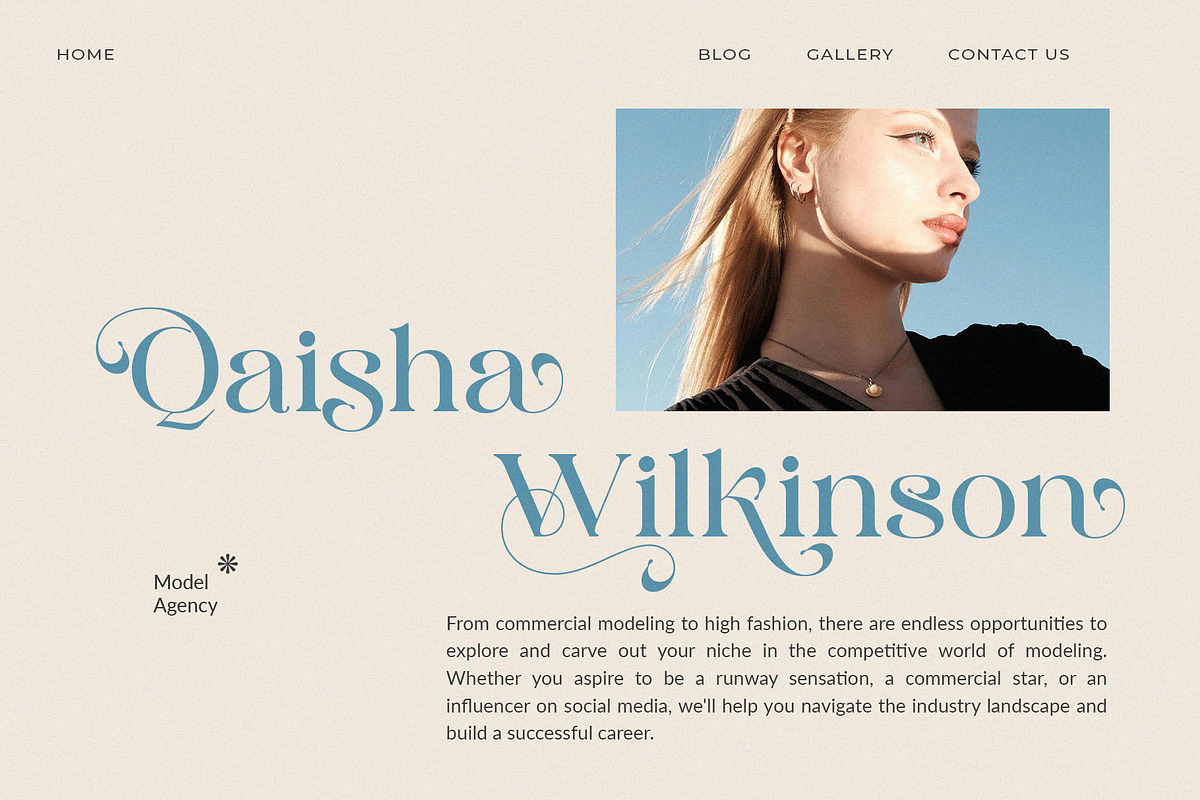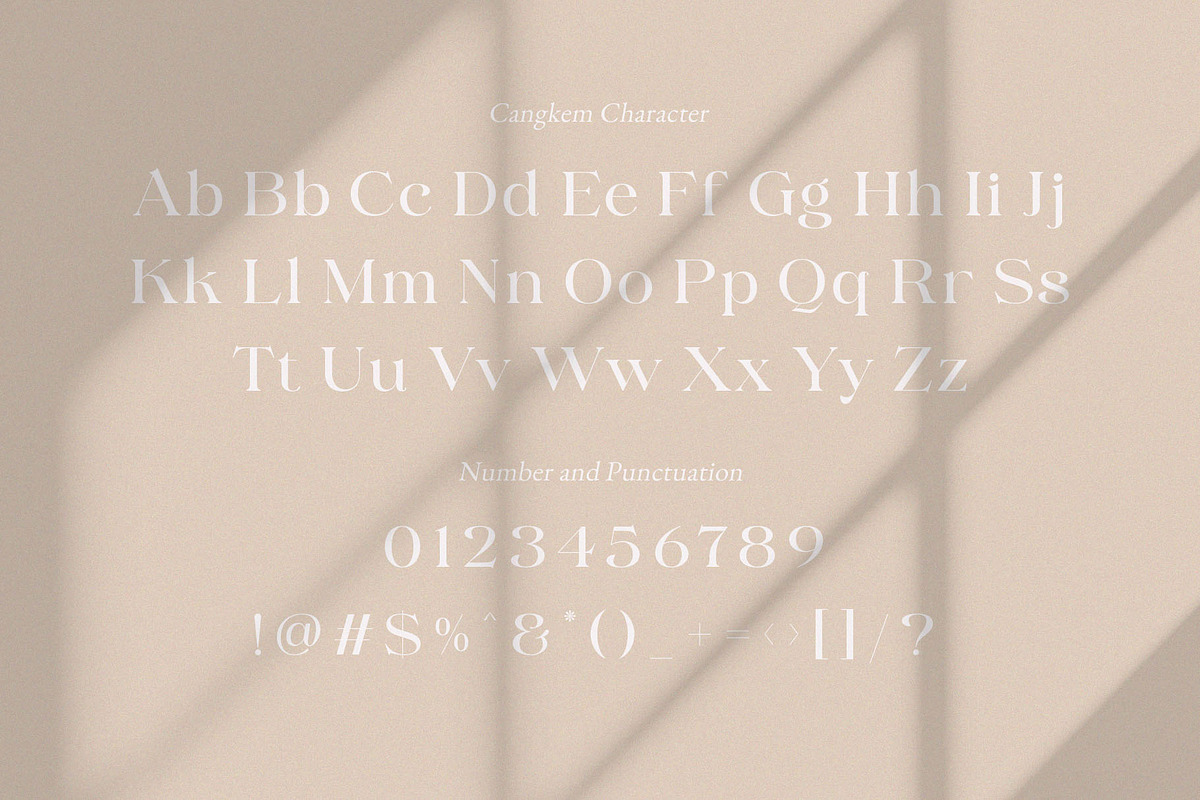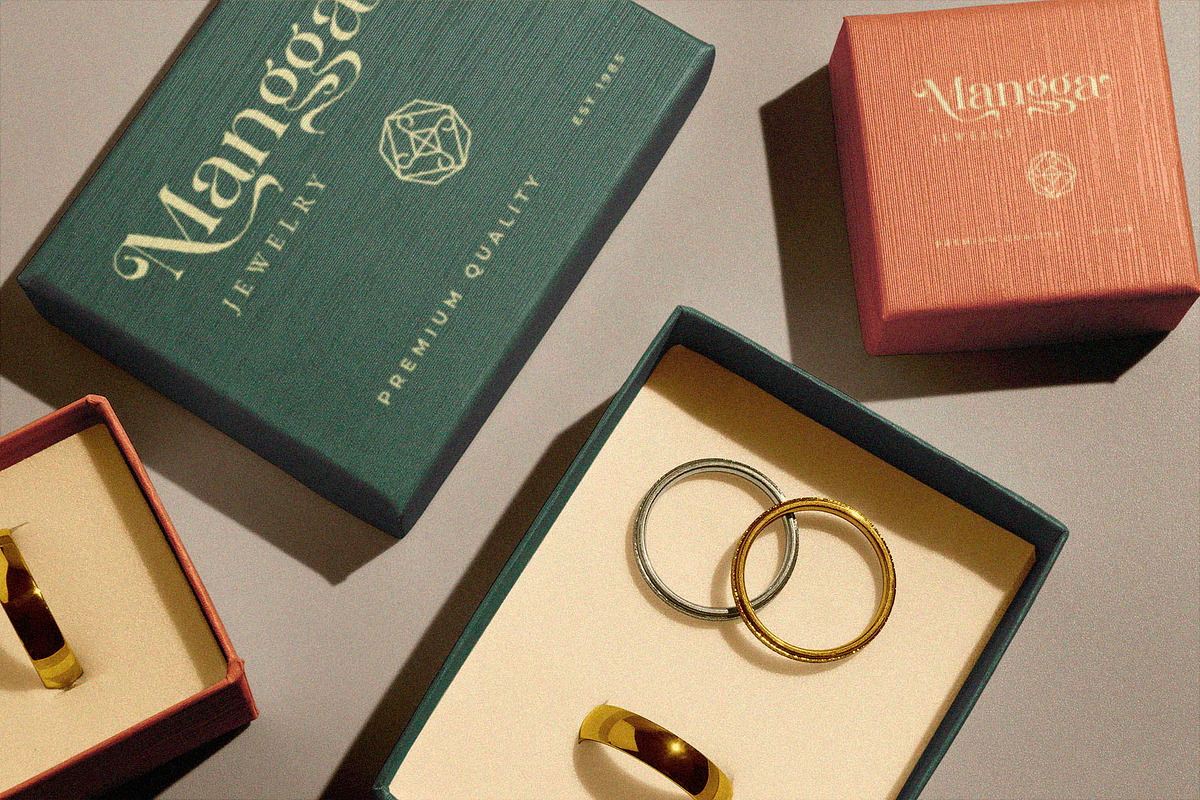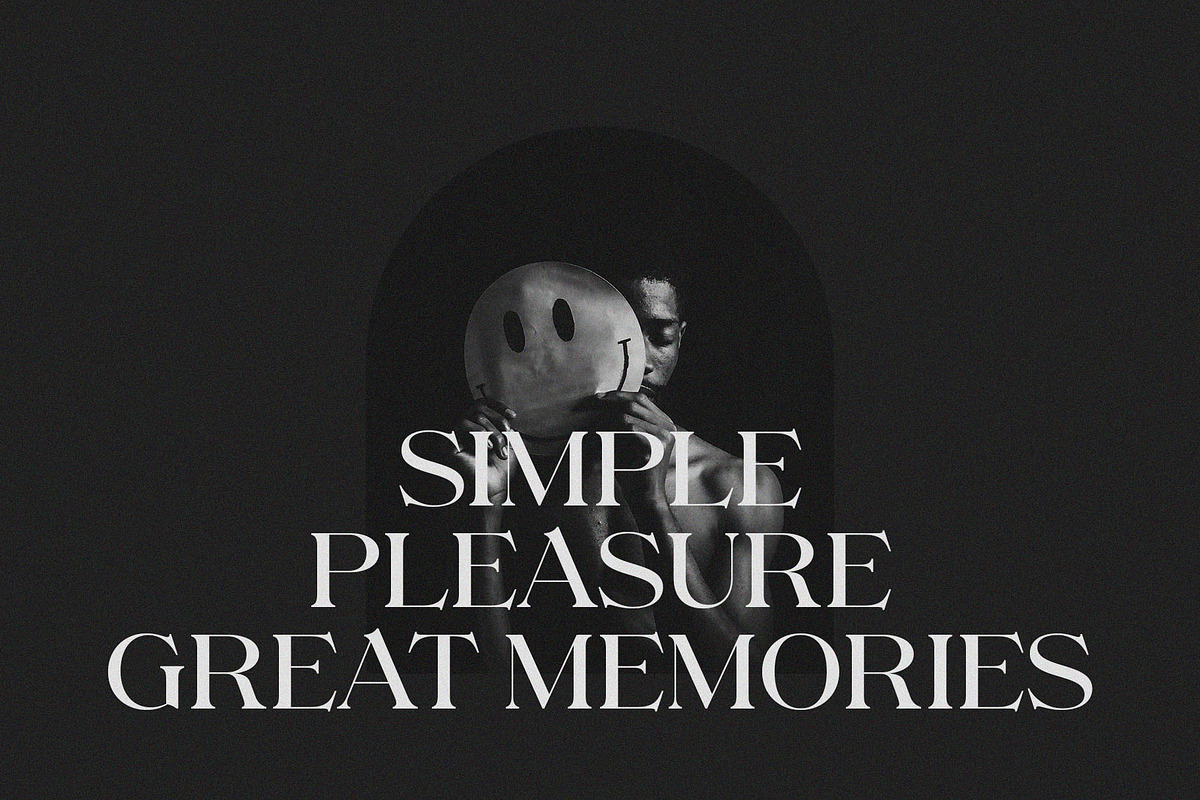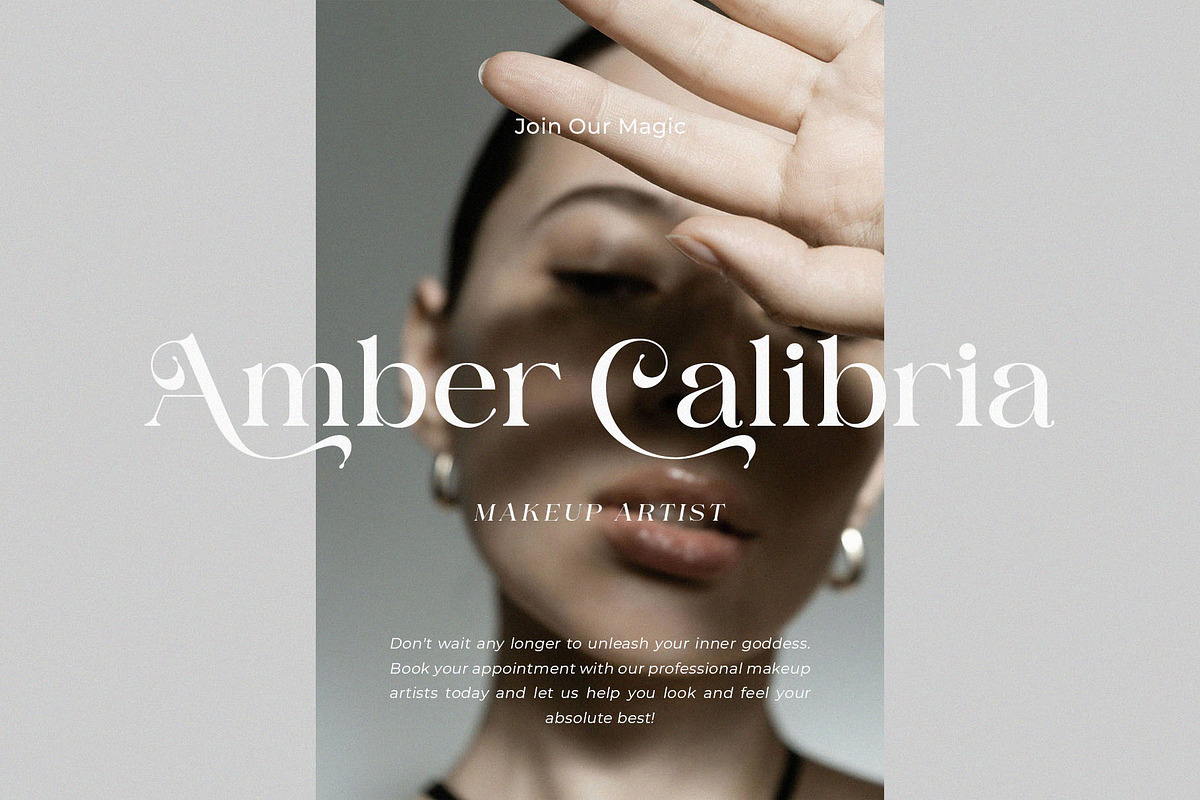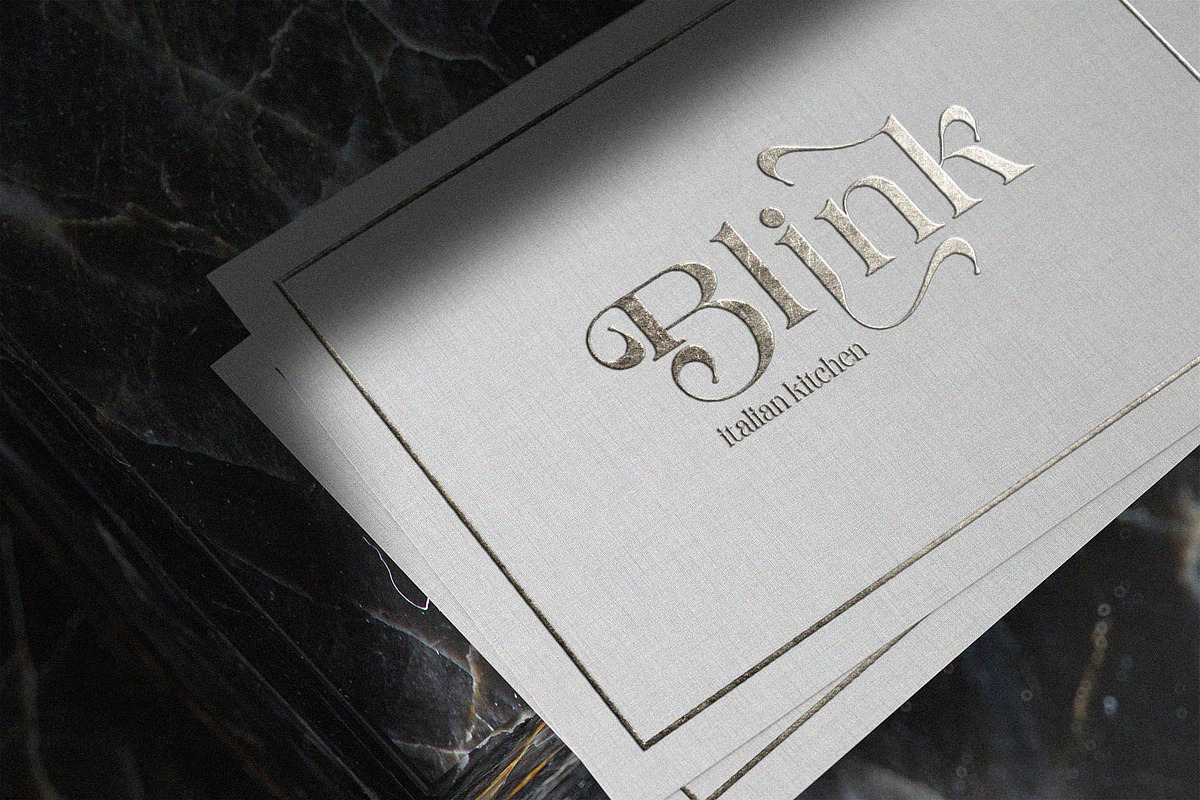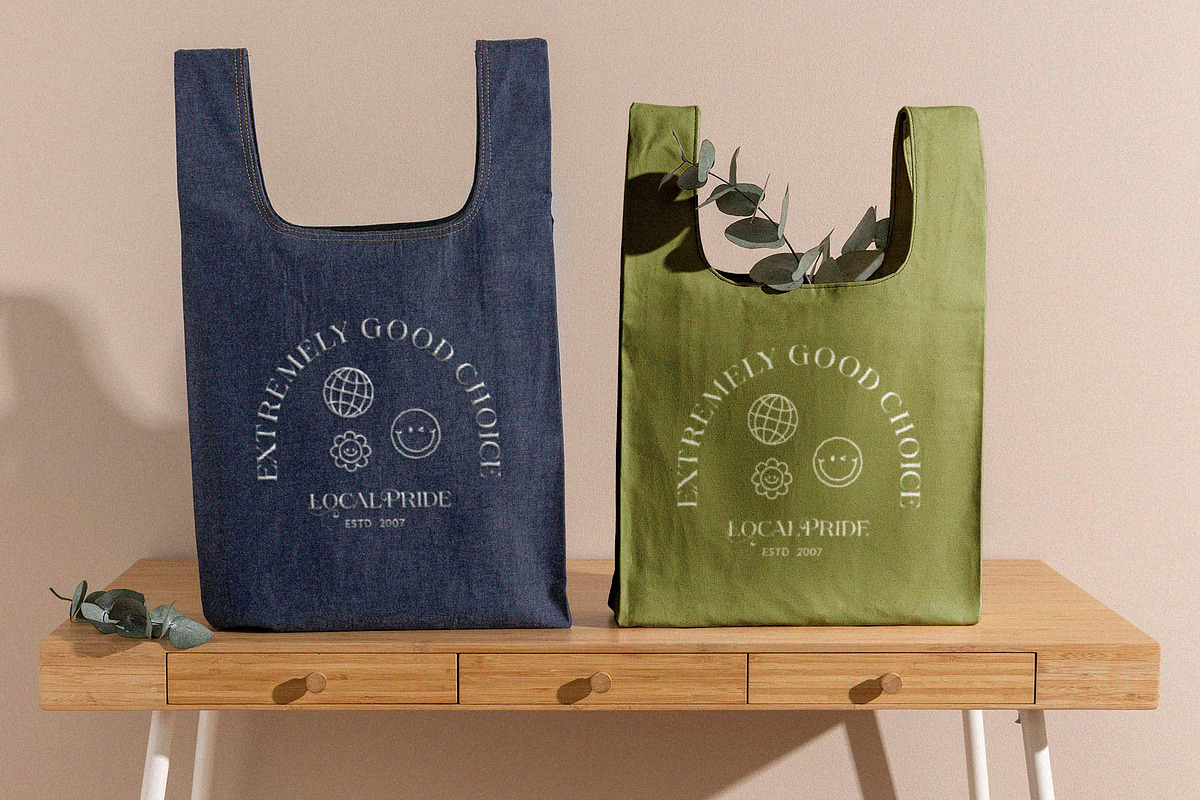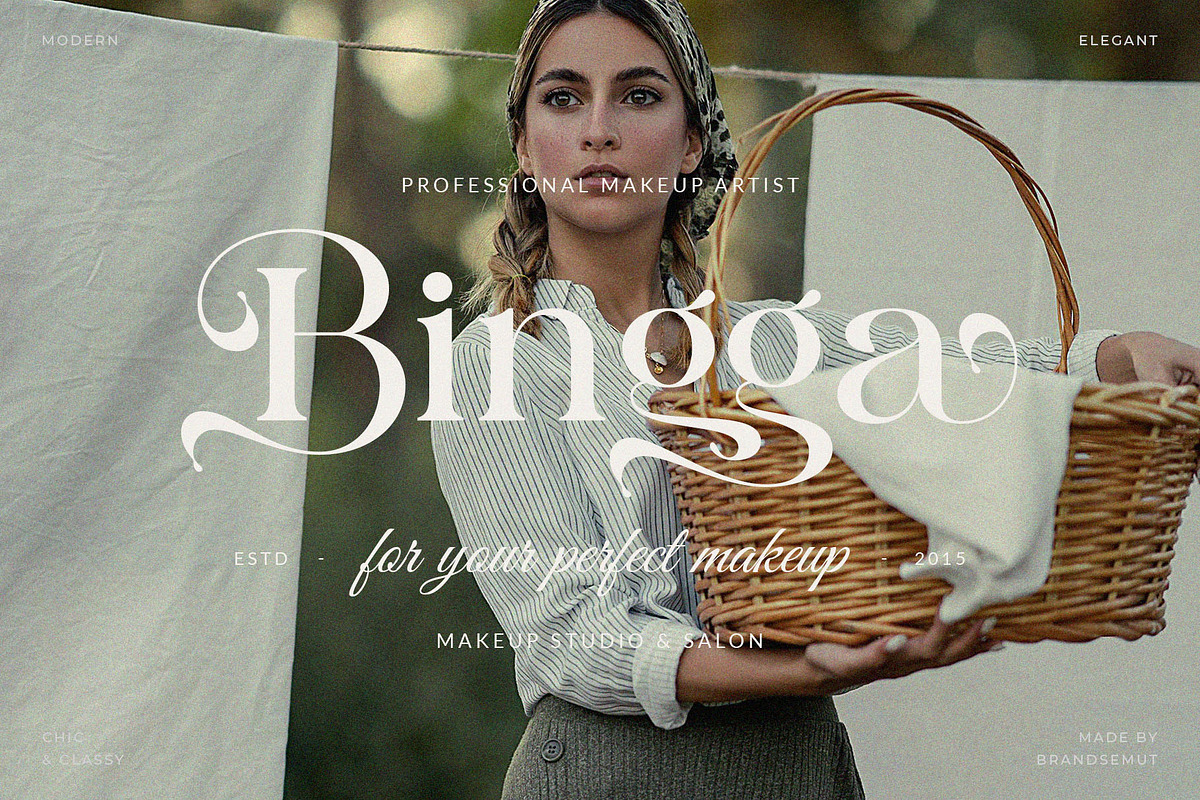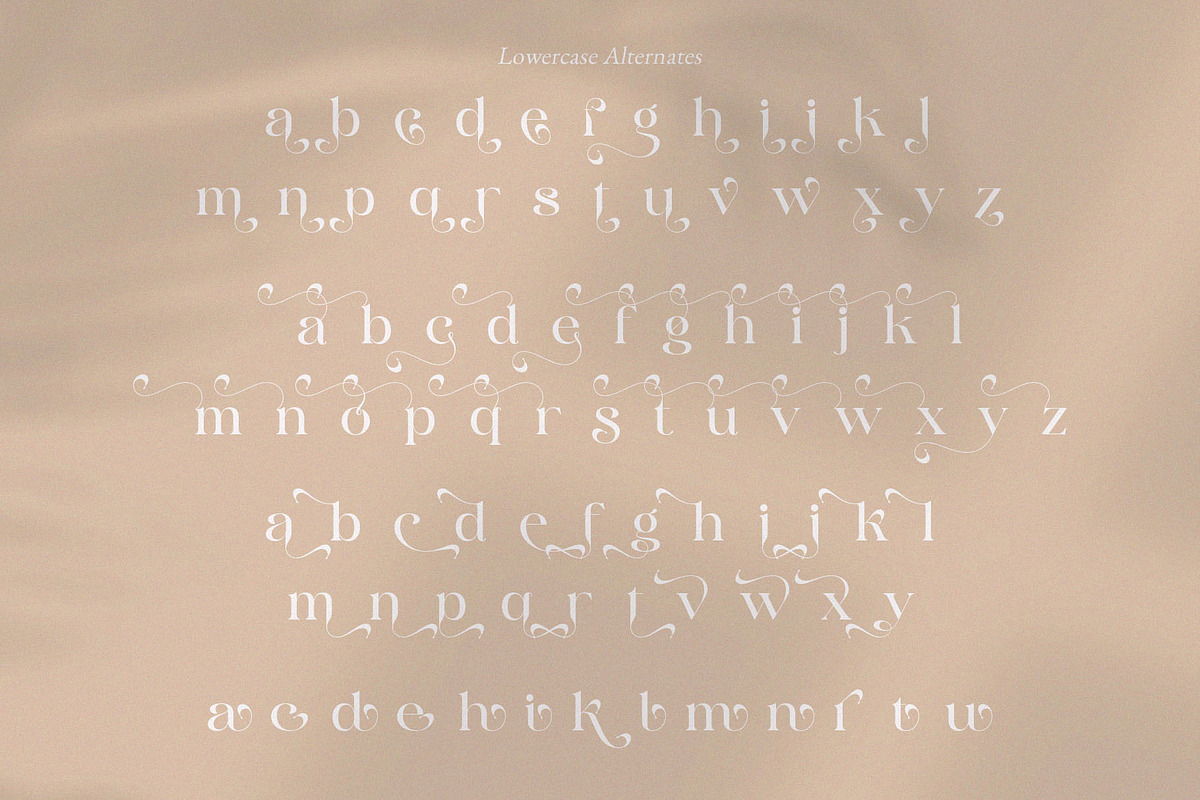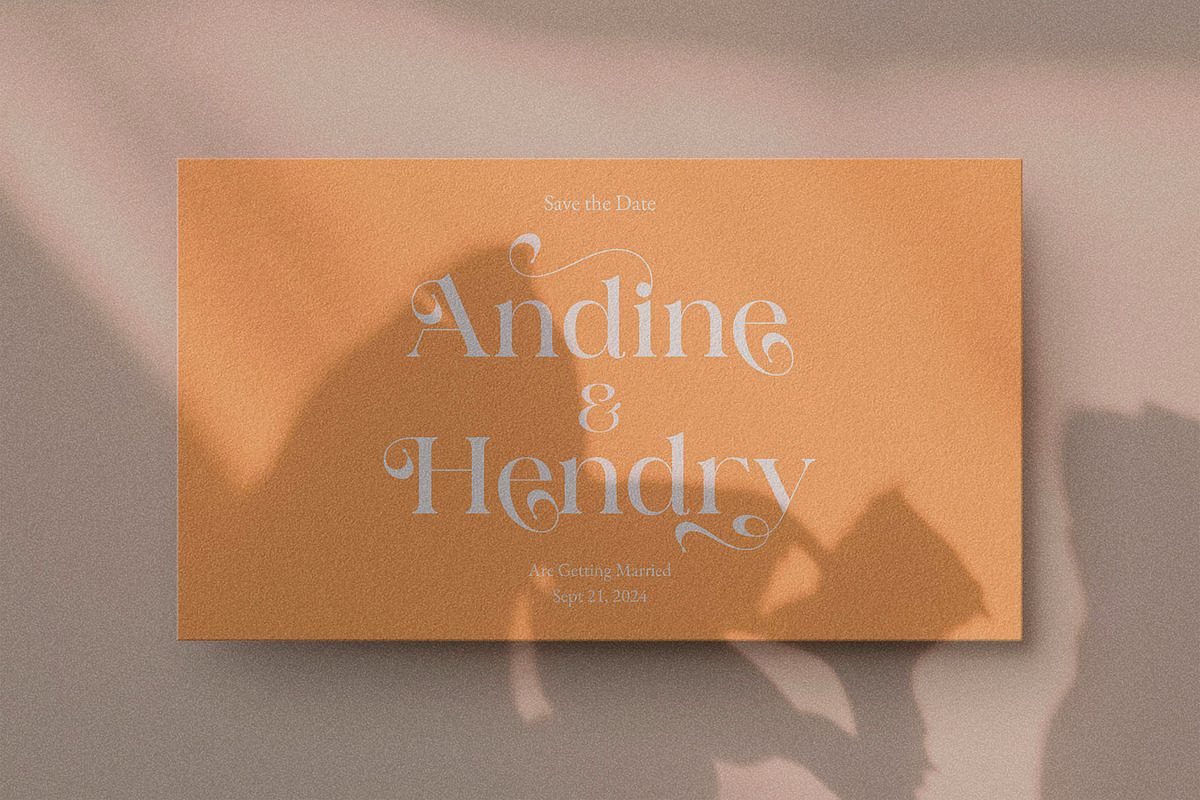
Cangkem || Elegant Display Serif
Introducing Cangkem Elegant Display Serif. Cangkem is a elegant, classy and modern display serif, best used as a display for headings, logos, branding, magazines, product packaging and invitations. Cangkem equipped with Ligature and many Alternates and come with clean lines and smooth curves give any project an extra touch of class.